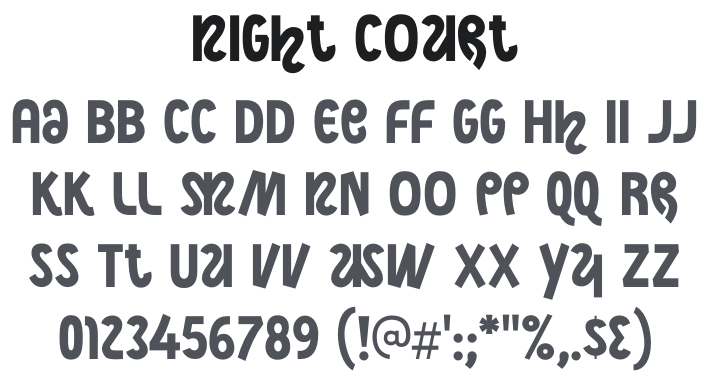
Night Court Font
About Night Court
Night Court is a bold, flamboyant display typeface with thick, chunky letterforms that mix playful rounded curves with sharp angular cuts — giving it a wild, unpredictable energy that's part graffiti, part psychedelic, part cartoon. The quirky mix of uppercase and lowercase proportions adds to its mischievous personality. Perfect for music posters, streetwear branding, nightlife graphics, comic designs, and any headline demanding loud, unapologetic fun.